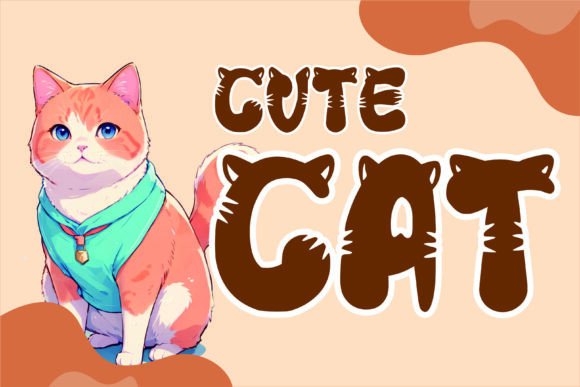
Introduction to Meoow Font
The “Meoow” font is an adorable, chubby, and bold typeface inspired by the softness and cuteness of cats.
Its unique characteristic lies in decorative elements such as tails, ears, and paw patterns, enhancing its playful and friendly vibe It is perfect for pet-themed projects, children’s products, pet food packaging design, or branding that aims to showcase a cute and cheerful feel.
Key Features of Meoow Font